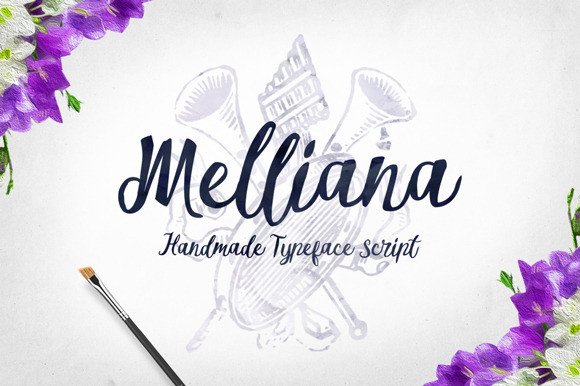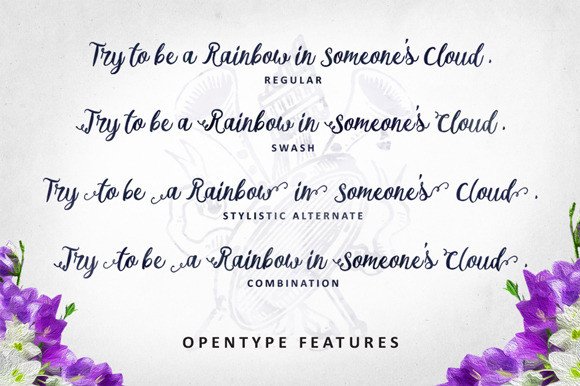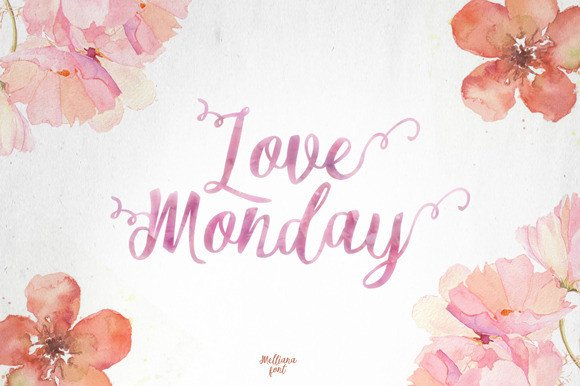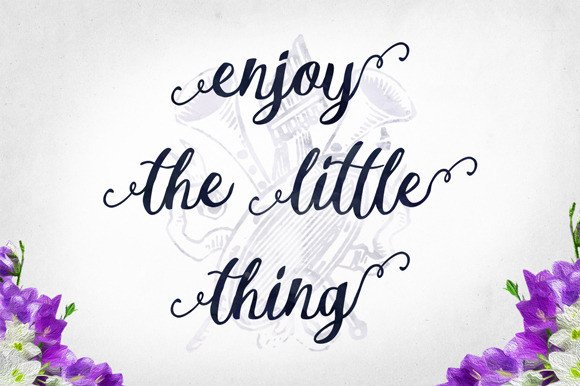
Melliana Font
About Melliana Font
Melliana is a gorgeous handcrafted font, ideal for a wide range of designs.  This beautiful script font is is perfect for invitationals, special events, and any other application imaginable.